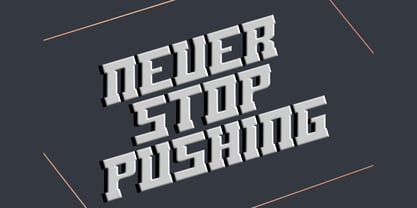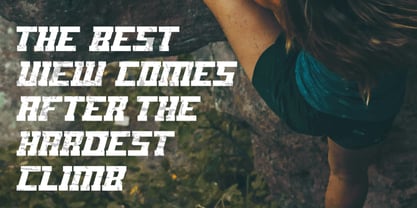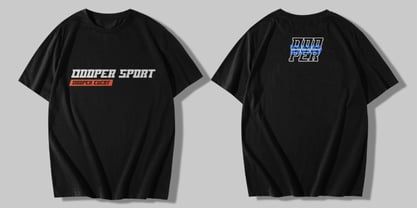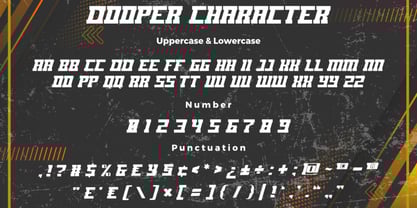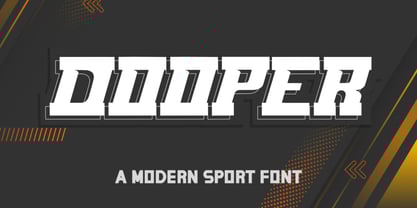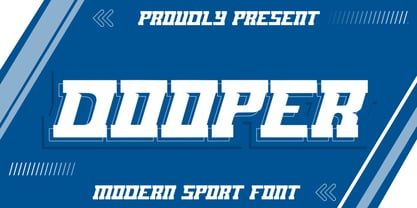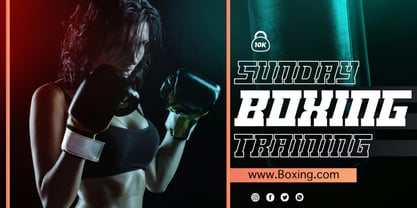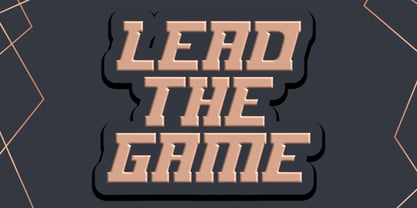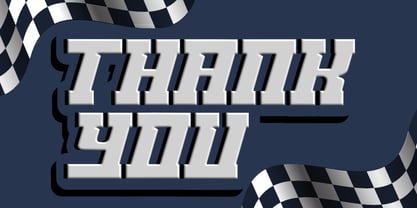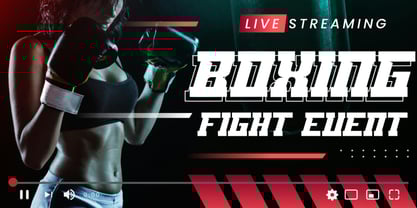
Dooper Sport
The Dooper Sport Font Family was designed by Bayu Aji Fais Mursid and published by Bayuktx. Dooper Sport contains 1 styles. More about this family
DOOPER Sport Font, This font is made with a high premium quality level which you can use as flyers, quotes, posters, banners, packaging, merchandise, logotypes and much more.
FEATURES :
* Uppercase
* Lowercase
* Number
* Punctuation
* Multilingual